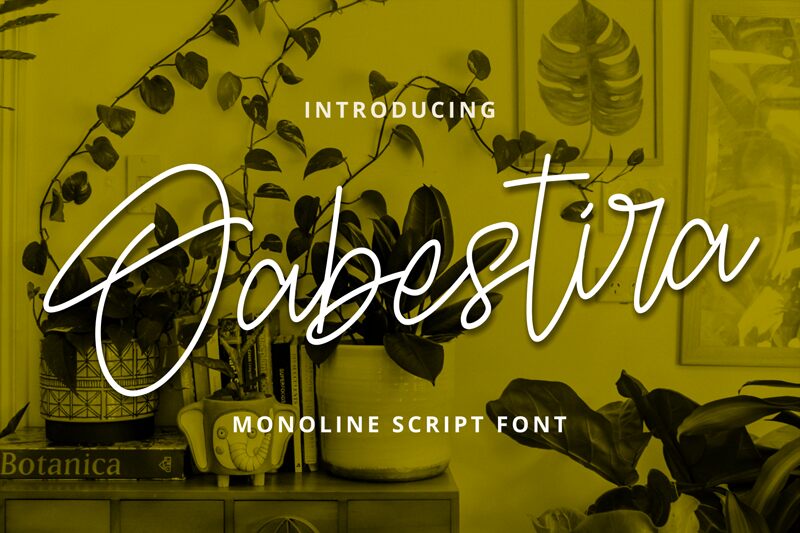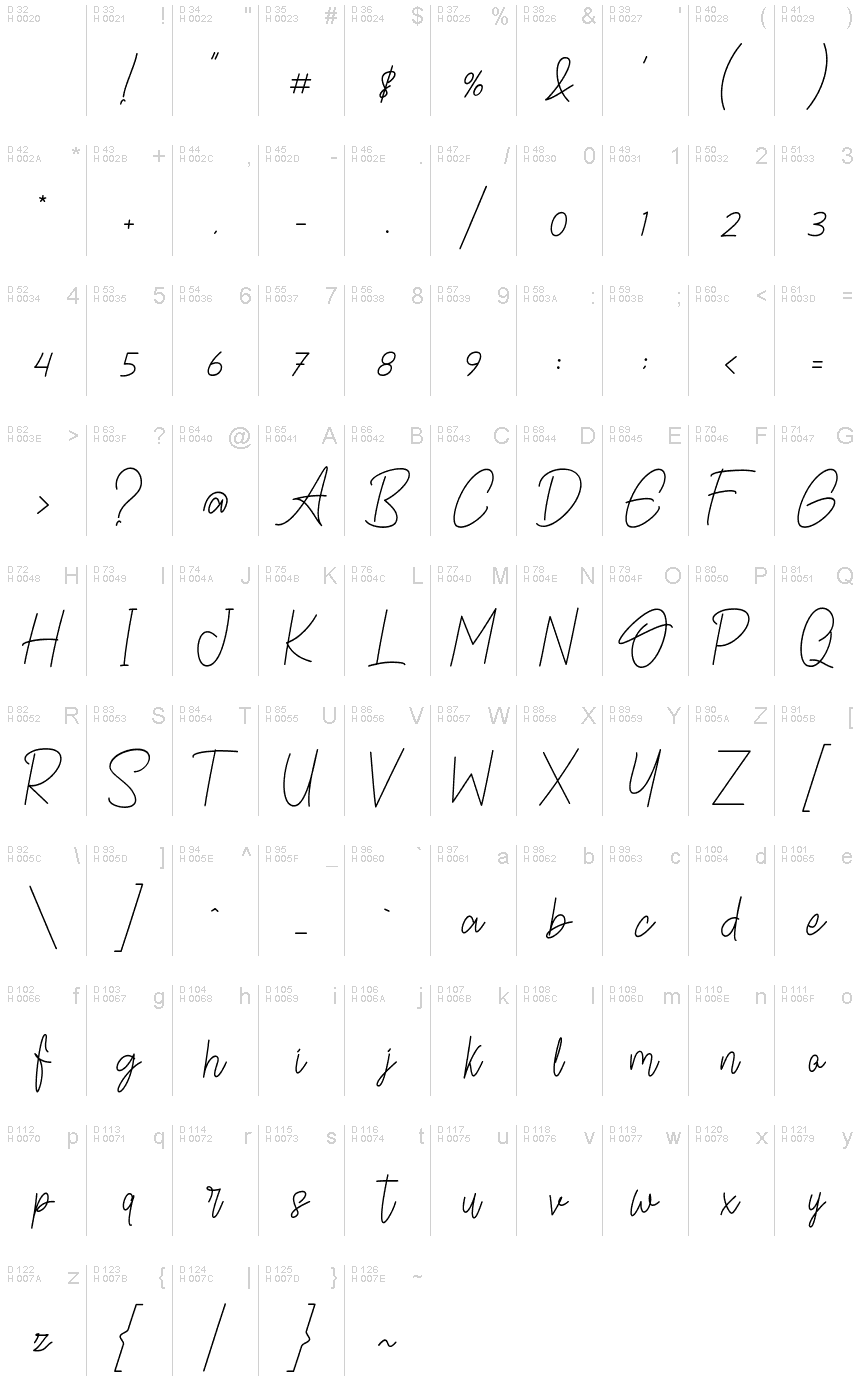
Oabestira
Introduce yourself to the beautiful Oabestira font! This monoline handwritten script is designed by Abdullah from Mabhal Studio and it's the perfect choice for any project that needs an elegant, thin touch. It's best suited for invitations, logos, labels and more!